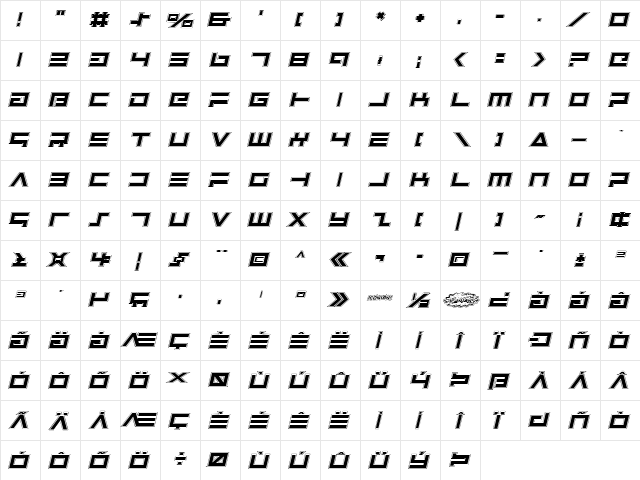
Avenger College Italic Italic
Design Context for Avenger College Italic Typeface
Avenger College Italic brings high-energy athletic personality to the page — its confident, muscular forms are built for impact. Its italic angle brings a sense of urgency and motion to the letterforms.
A natural choice for gym brands, fantasy sports, jersey lettering, and action-driven headlines.
Pro Tip: Use Avenger College Italic in all-caps headlines where its athletic energy can fully express itself. Pair with a solid, simple sans for supporting text.